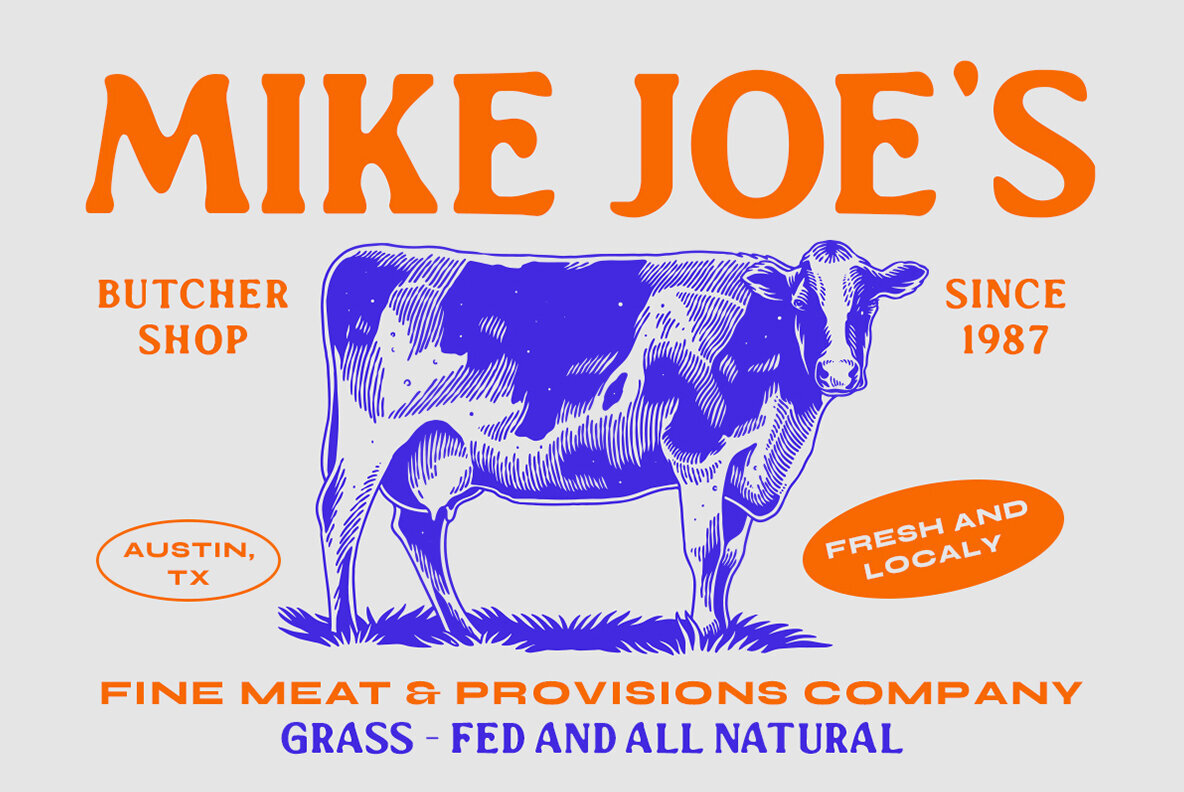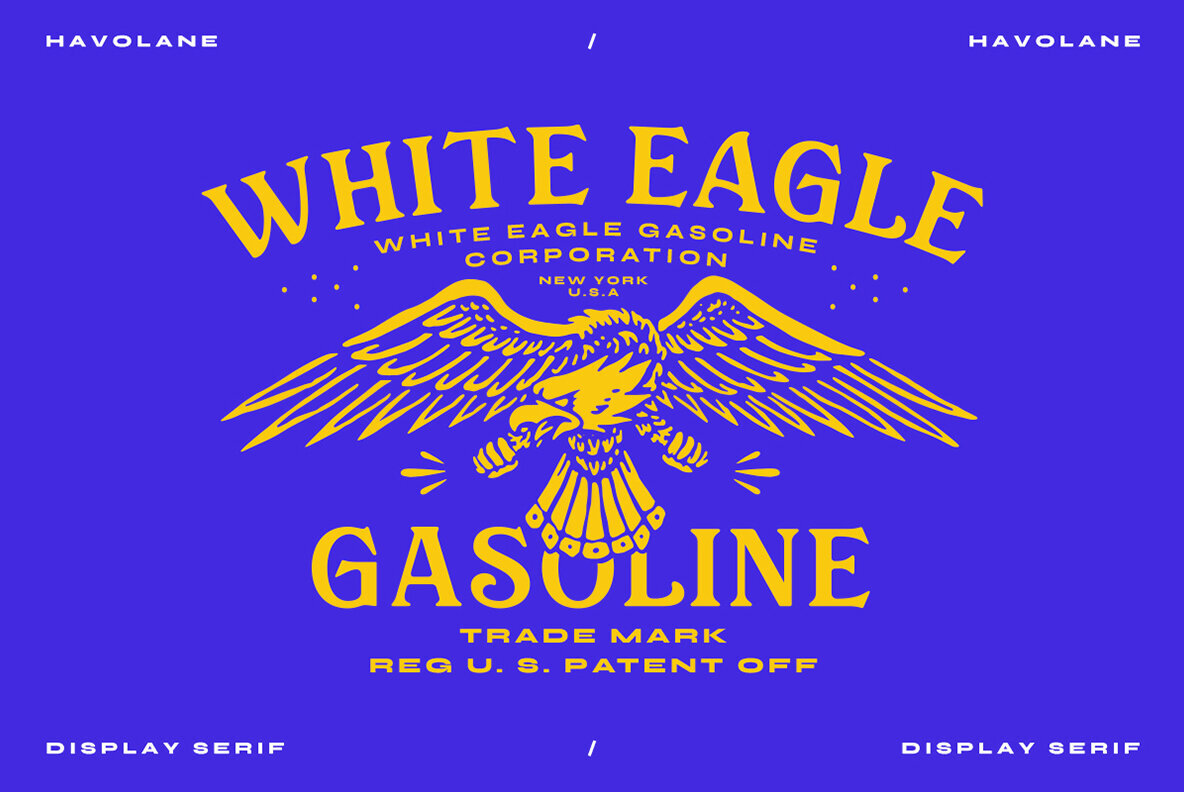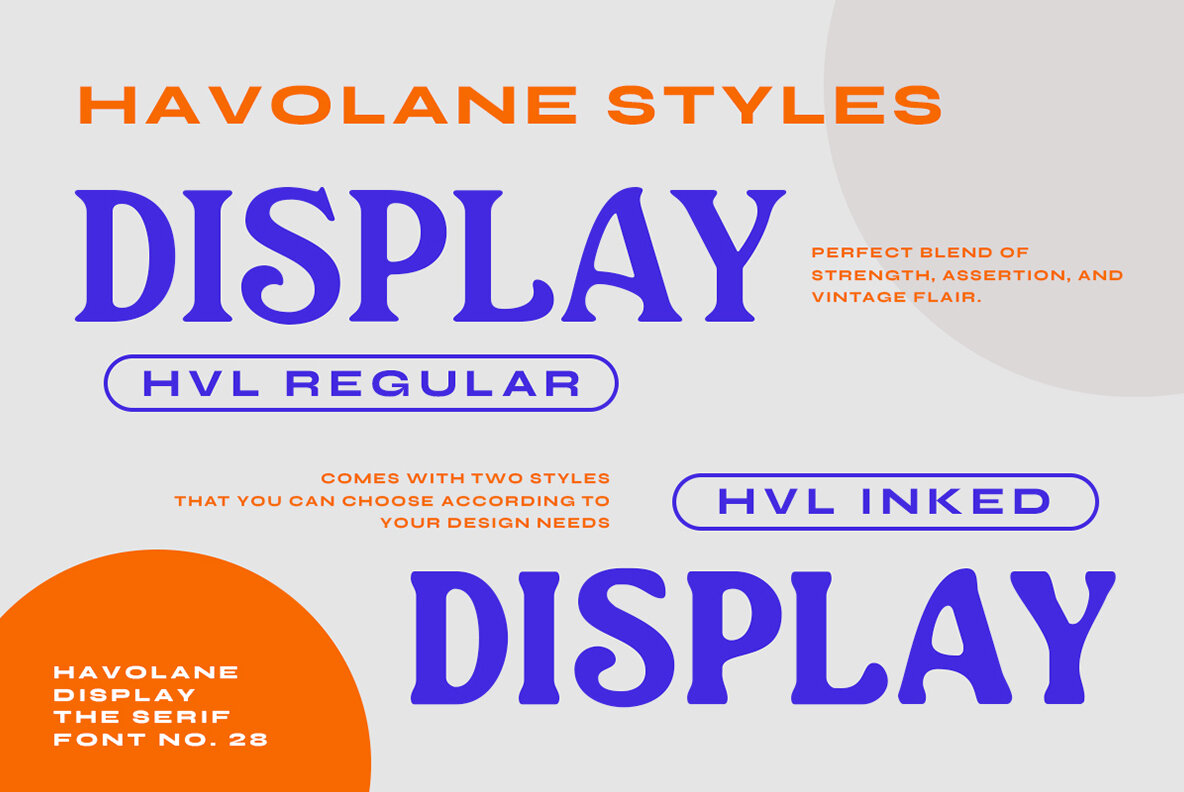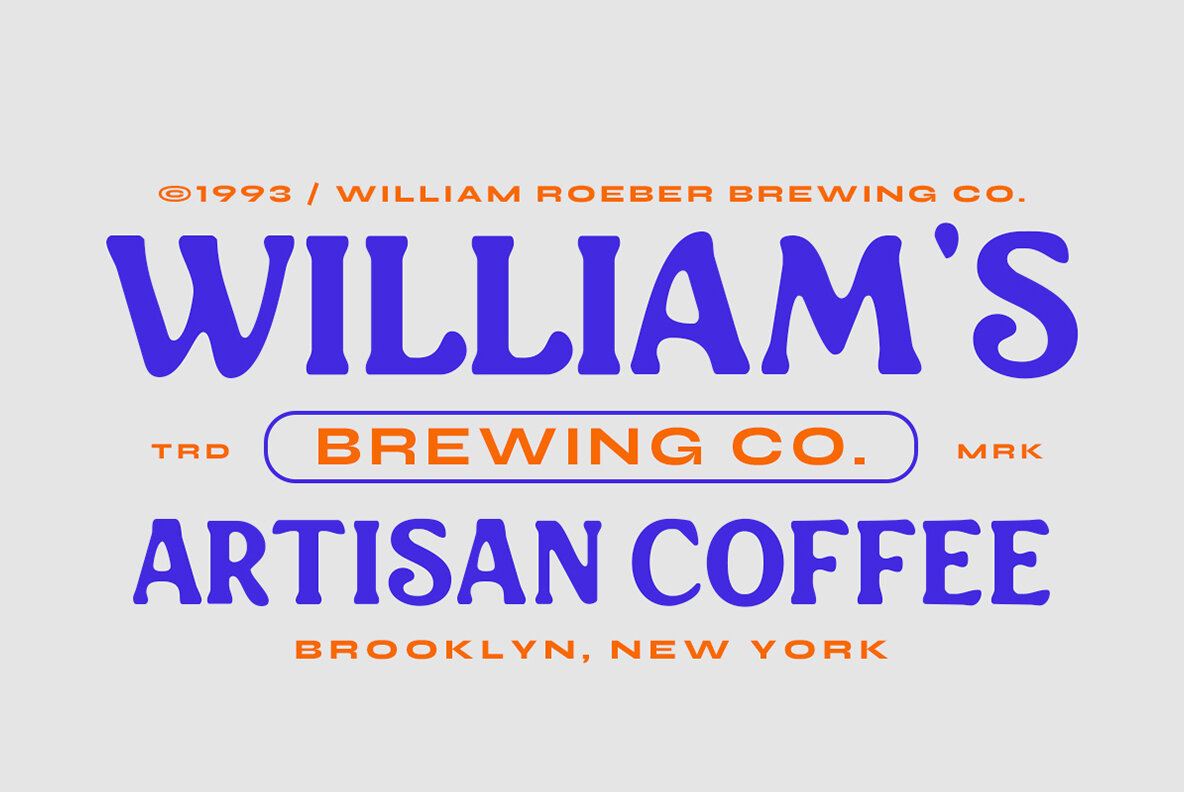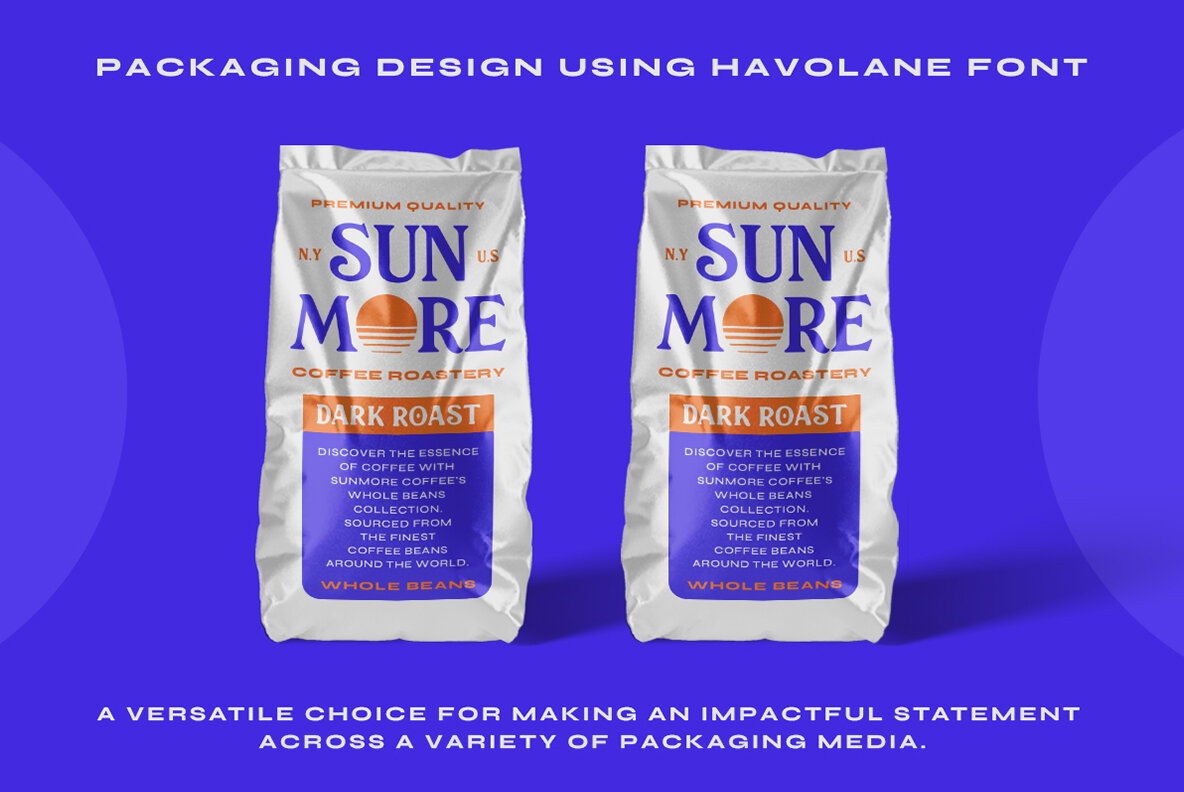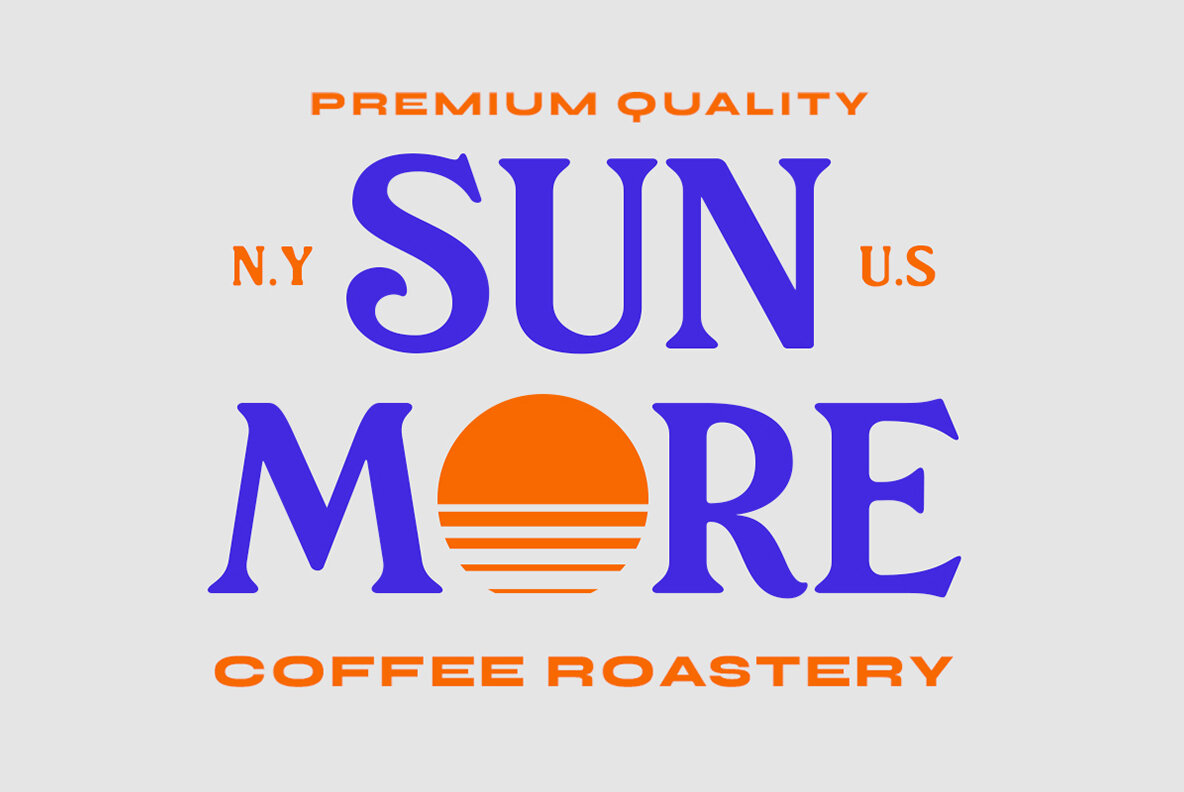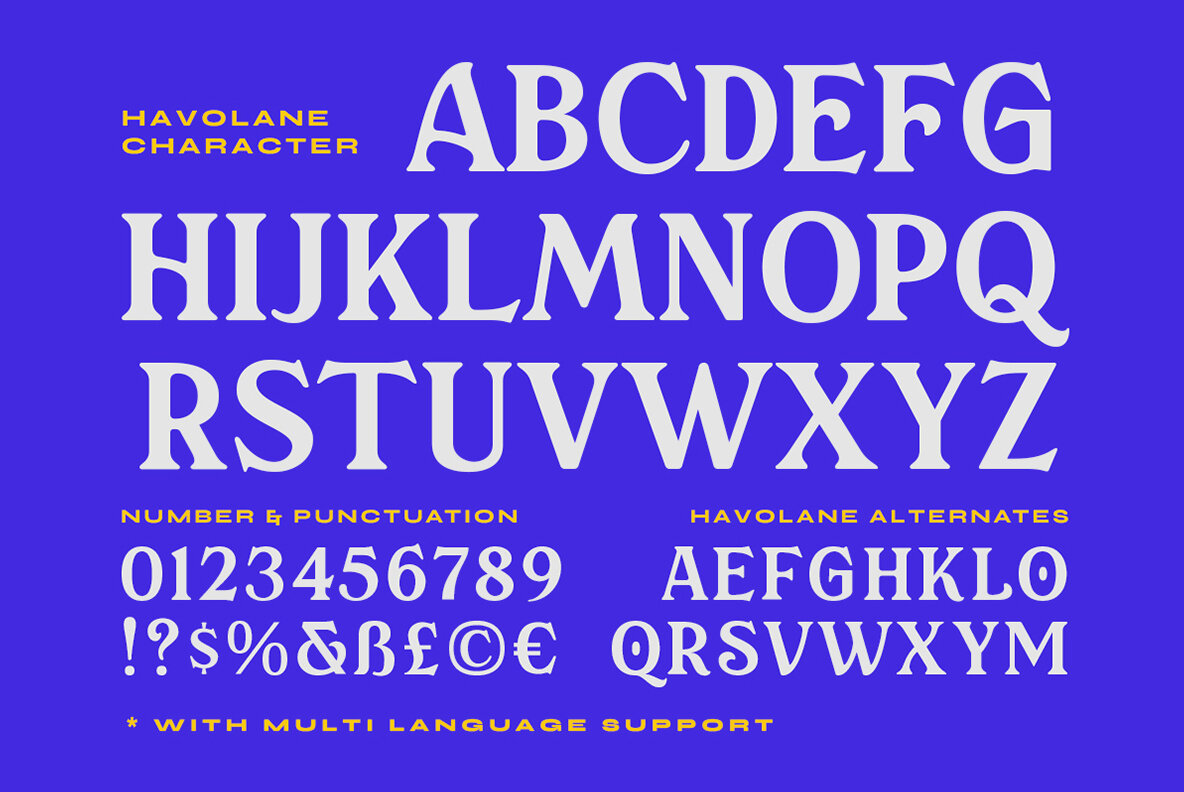
Havolane Font
Havolane Regular
Havolane Inked
Havolane is a display serif font that combines a modern vintage aesthetic, making it ideal for branding, headlines, and packaging. This font offers two styles: "Regular" and "Inked", providing versatility and depth to your design projects. It pairs seamlessly with sans-serif fonts, ensuring your designs stand out effortlessly. NOTE: Please refer to the Help File for further guidance. All characters are accessible in the Adobe Illustrator Glyphs Panel or the Adobe Photoshop Character Open Type Panel.Havolane: Display Serif with a Modern Vintage Twist